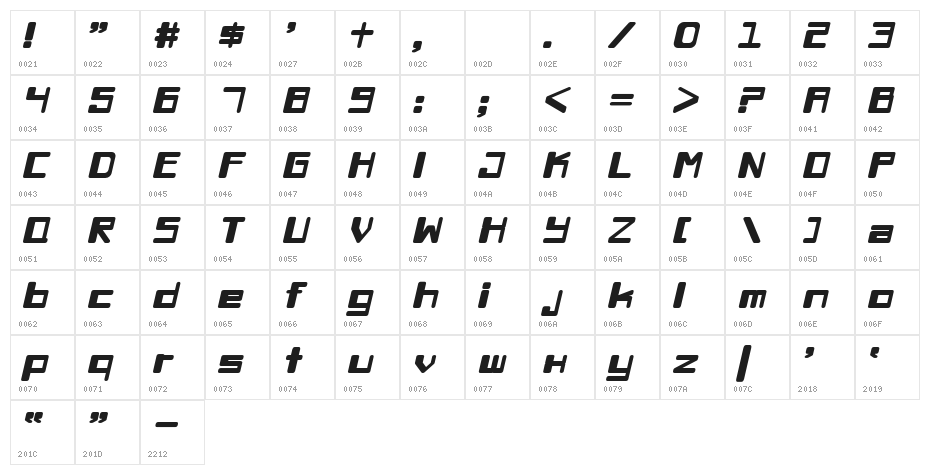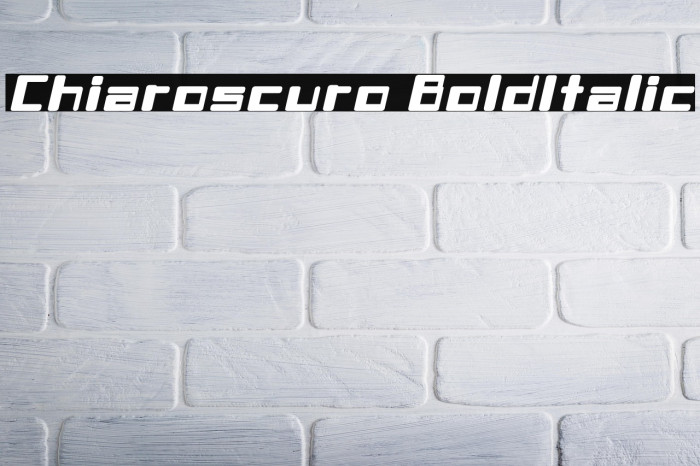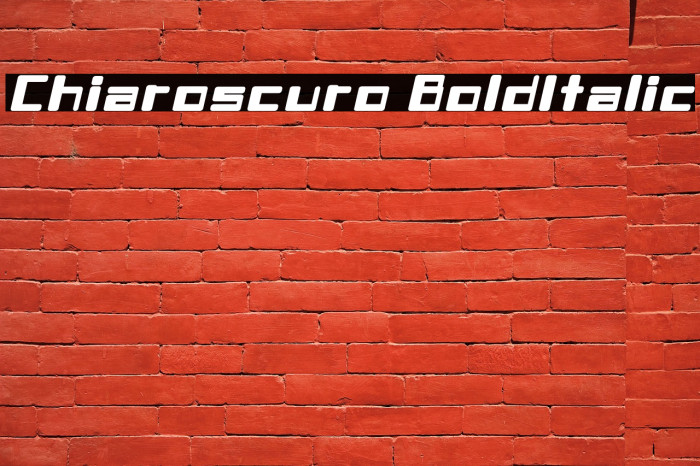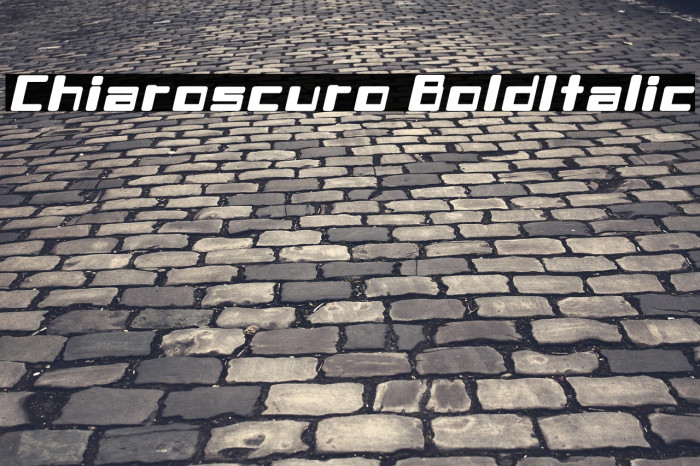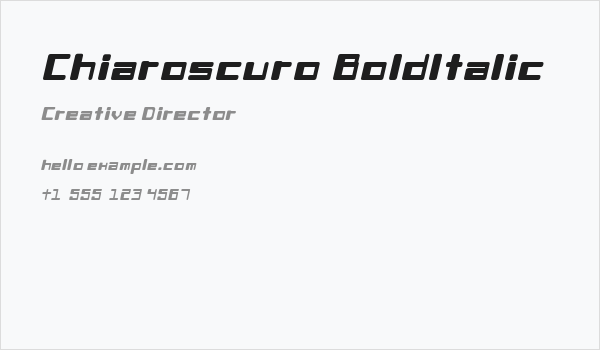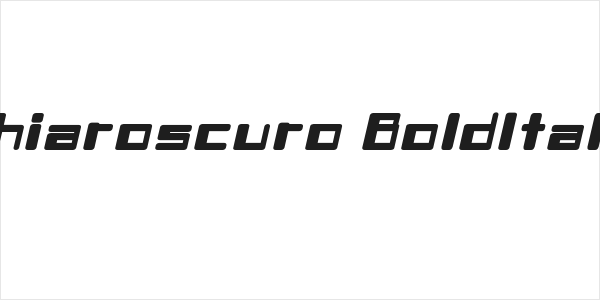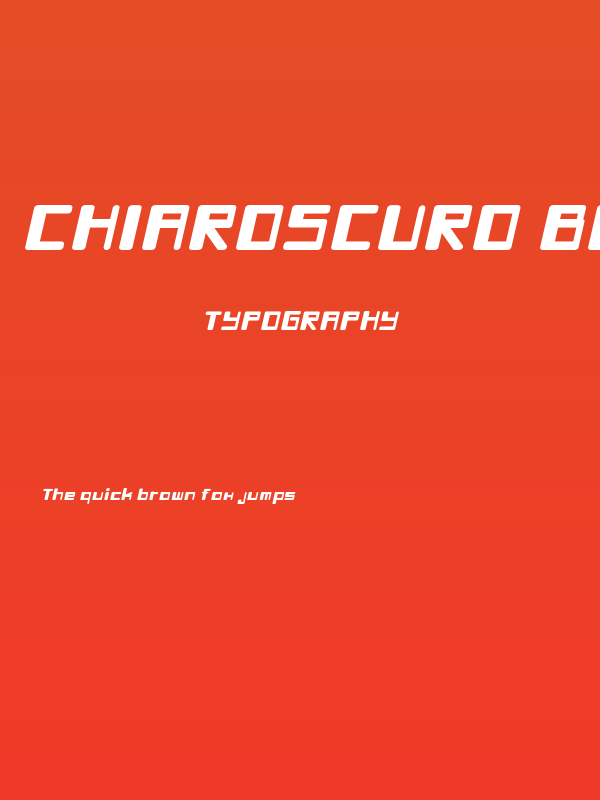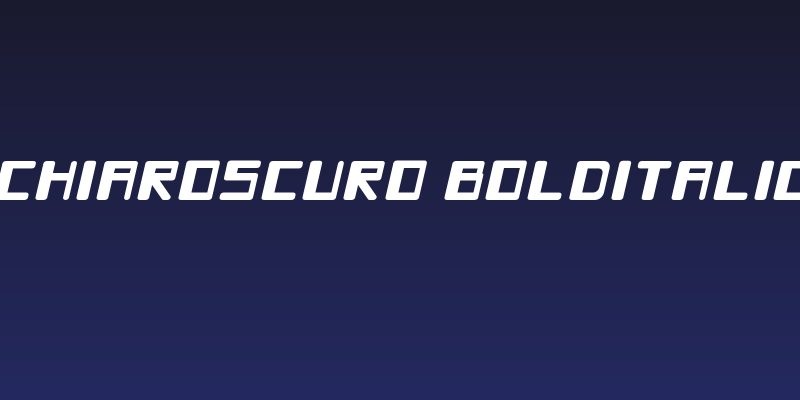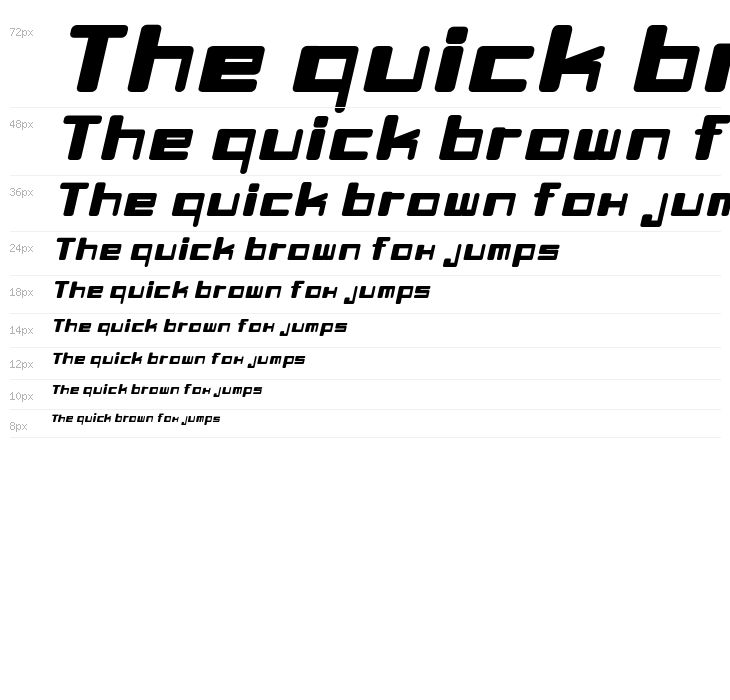
Chiaroscuro-BoldItalic Font
Chiaroscuro-BoldItalic Description
This font features a bold and italicized style with a modern and dynamic appearance. The characters are slightly slanted, giving a sense of motion and energy. The strokes are thick and consistent, providing a strong visual impact. The design incorporates rounded edges, which soften the overall look while maintaining a sense of boldness. The spacing between characters is tight, enhancing the compact and cohesive feel of the text. This font is well-suited for projects that require a contemporary and assertive typeface.
| Proposed Projects | Ideal for branding, advertising, sports team logos, and dynamic poster designs. |